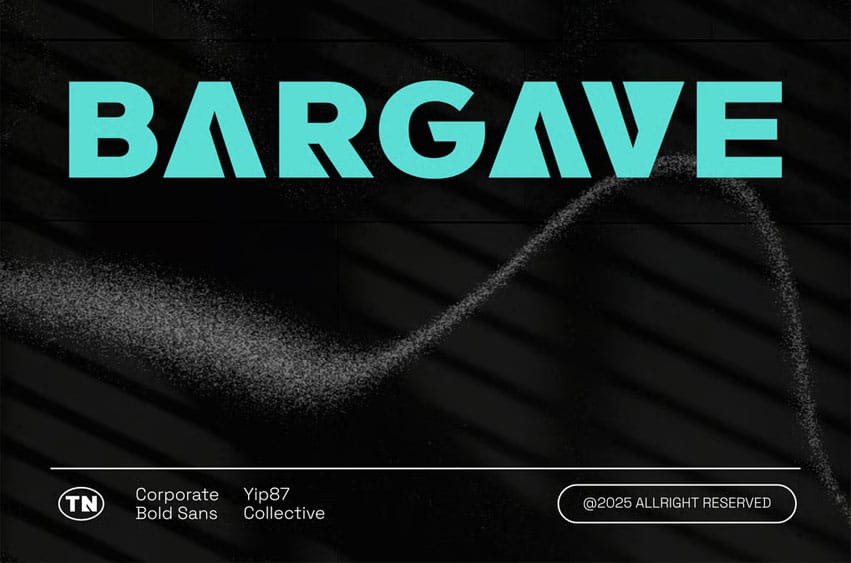
Bargave Font is a Modern Bold Logo and Display Font. It is a Clean Minimalist Modern Bold Sans Serif, designed specifically for logos, branding, headers / headline, game, music, techno, urban, college, technology and gadget branding.